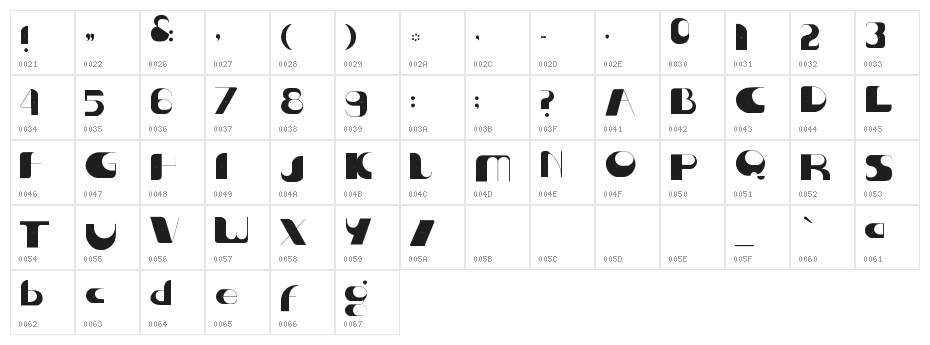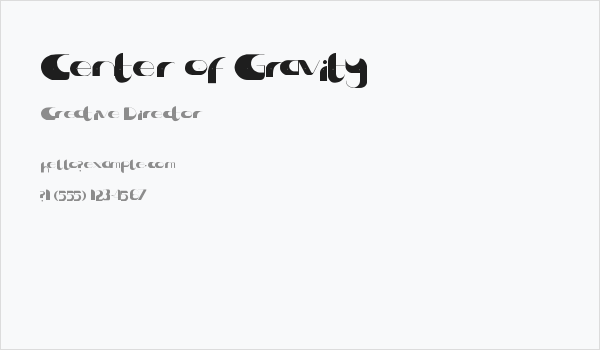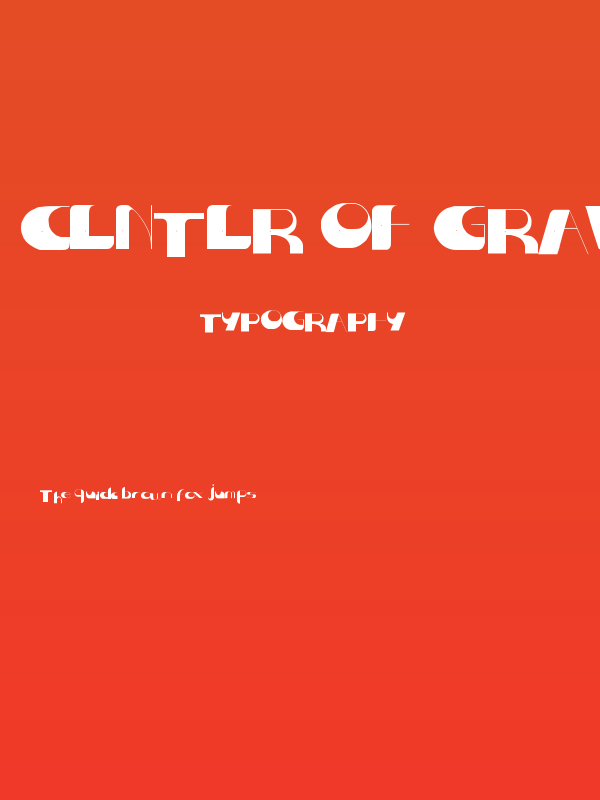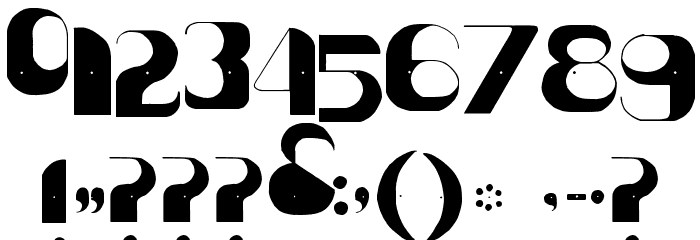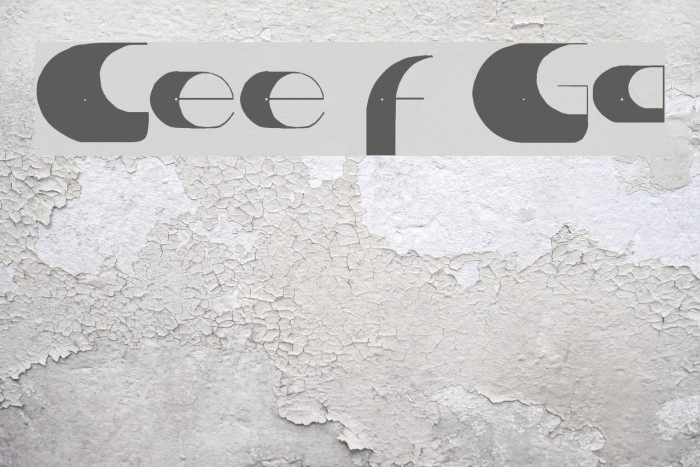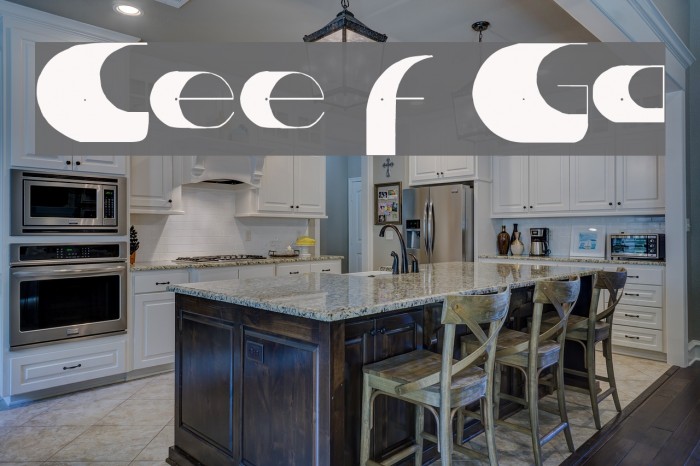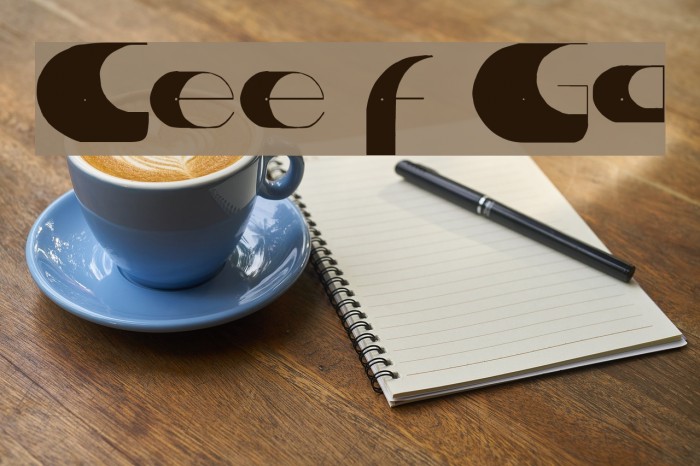
Center of Gravity Font
Center of Gravity Description
This font features a unique and modern design with a futuristic touch. The characters are bold and have a geometric structure, with some letters incorporating cut-out sections that add to the contemporary feel. The uppercase letters are particularly striking, with a strong presence and distinct shapes. The lowercase letters maintain the geometric theme, offering a cohesive look across the typeface. Numbers and special characters are designed with the same boldness and geometric style, ensuring consistency throughout. This font is ideal for projects that require a modern and eye-catching aesthetic.